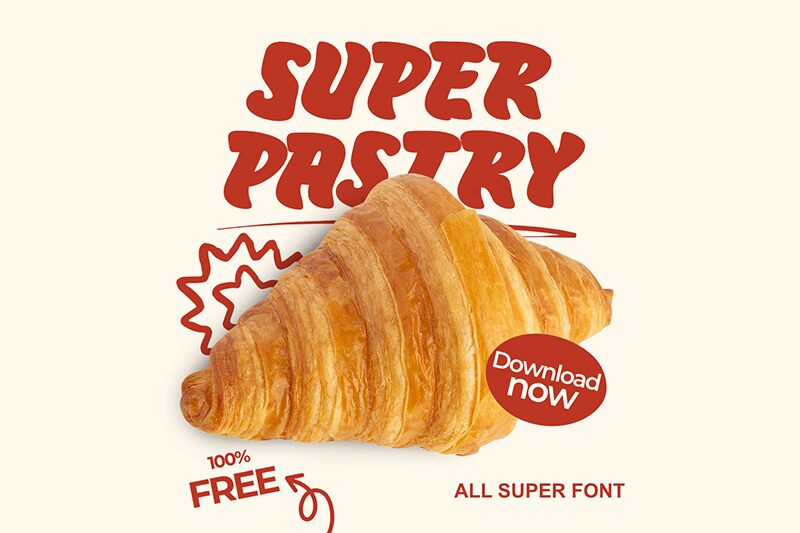
Super Pastry
Super Pastry font by fsuarez913 is a cartoon display free font with condensed letters for both personal and professional applications. The casual bold characters express charm in every retro-inspired curve, allowing users to appreciate the smooth flow of this creation. Because while first impressions are important, the second ones can leave a bigger impact.
Create playful presentations for magazines and newspapers or use Super Pastry for student cards, t-shirts designs, badges, posters, etc. A more classic option can be presented to decorated card games or new stickers that young adults can relate to and enjoy.